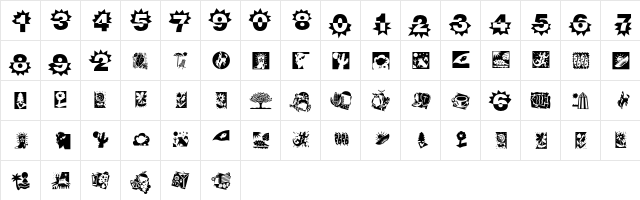
Df NaturalsPlain
Design Context for Df Typeface
Df is a composed and adaptable typeface that performs quietly and consistently across a wide range of design contexts.